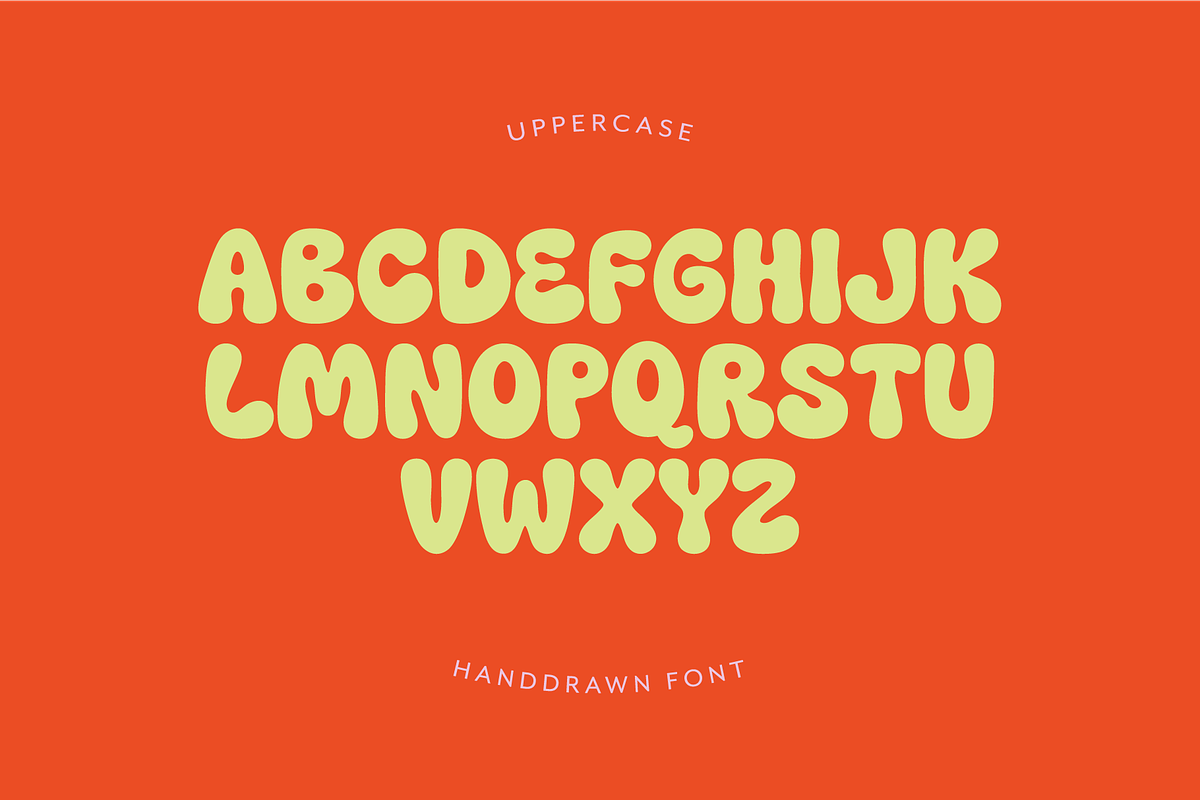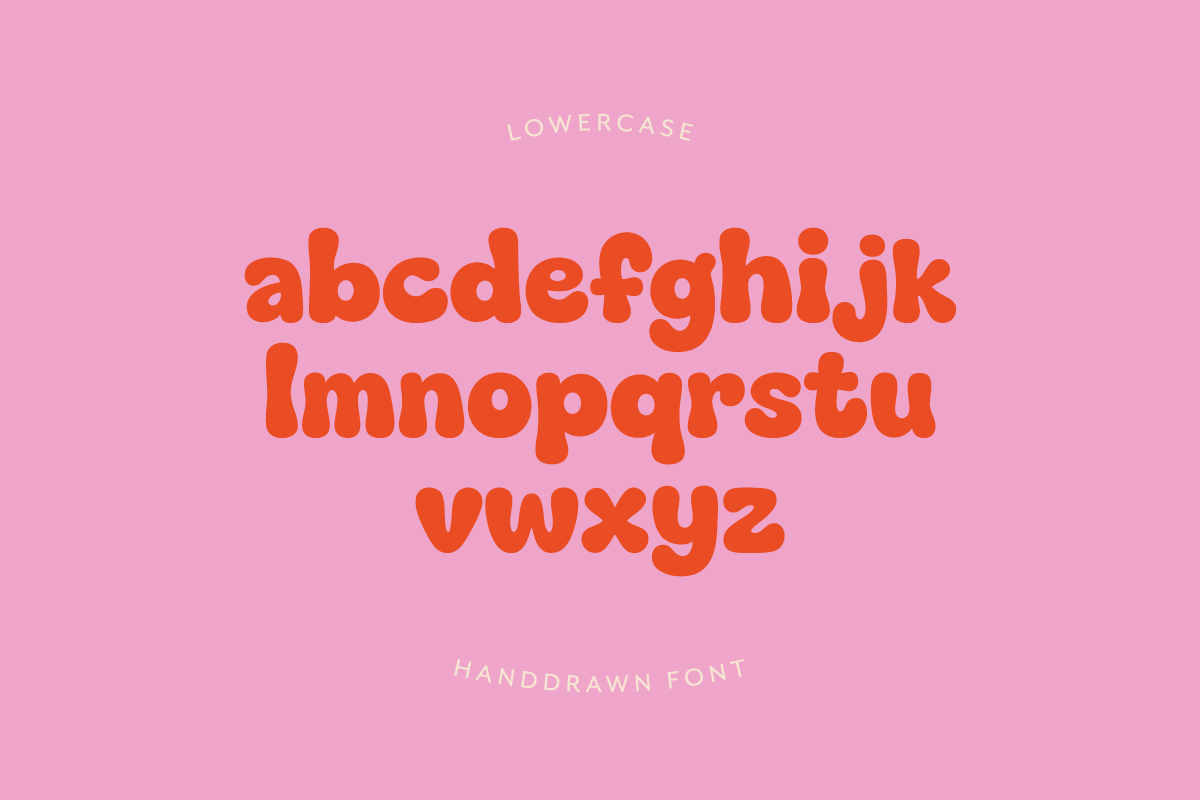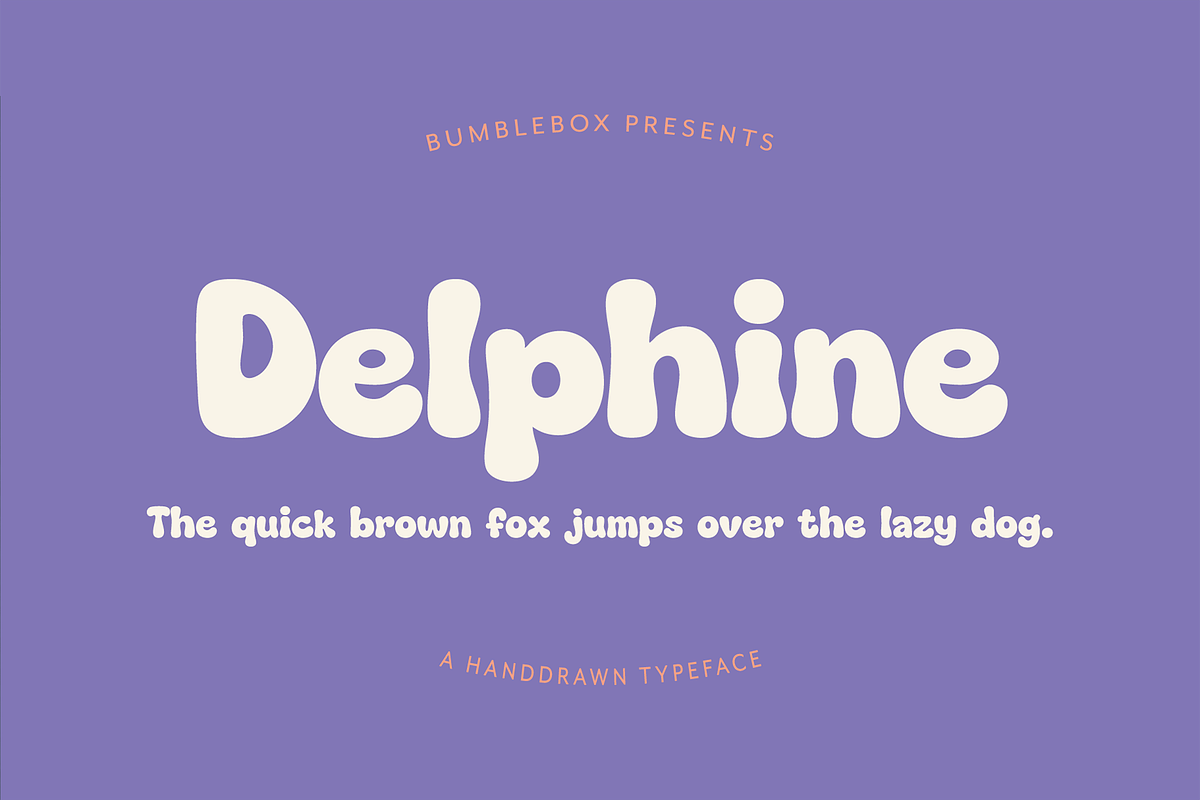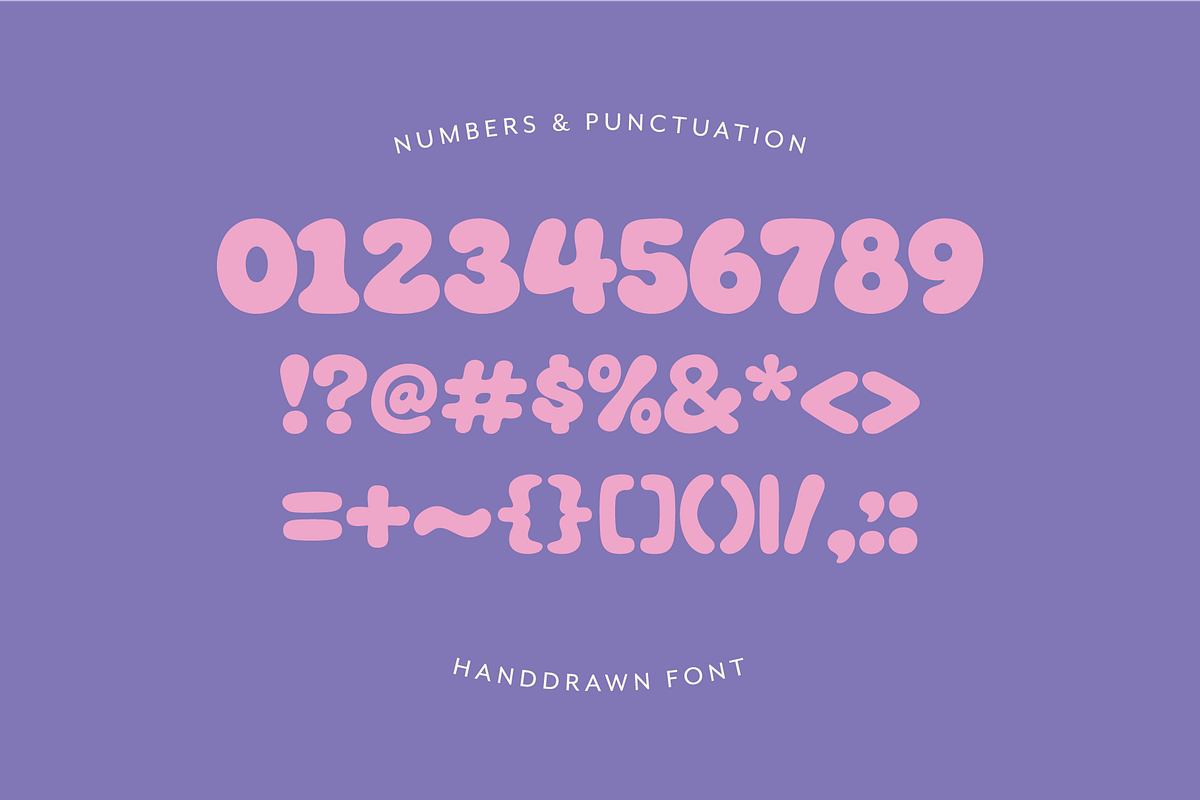
Delphine - Handwritten Bubble Font
Delphine is a playful hand-drawn bubble font made for bold, feel-good designs that instantly stand out. With its chunky curves, soft edges, and retro-inspired personality, Delphine brings a fun, expressive vibe to any creative project.
Perfect for designers, creators, and small brands looking for a font that feels warm, trendy, and full of character.
Delphine was designed to feel approachable, happy, creative, and a little nostalgic, while still staying highly readable at larger display sizes.
Whether you're building a cozy brand aesthetic, creating trendy typography layouts, or designing scroll-stopping content for social media, Delphine adds instant personality to your work.